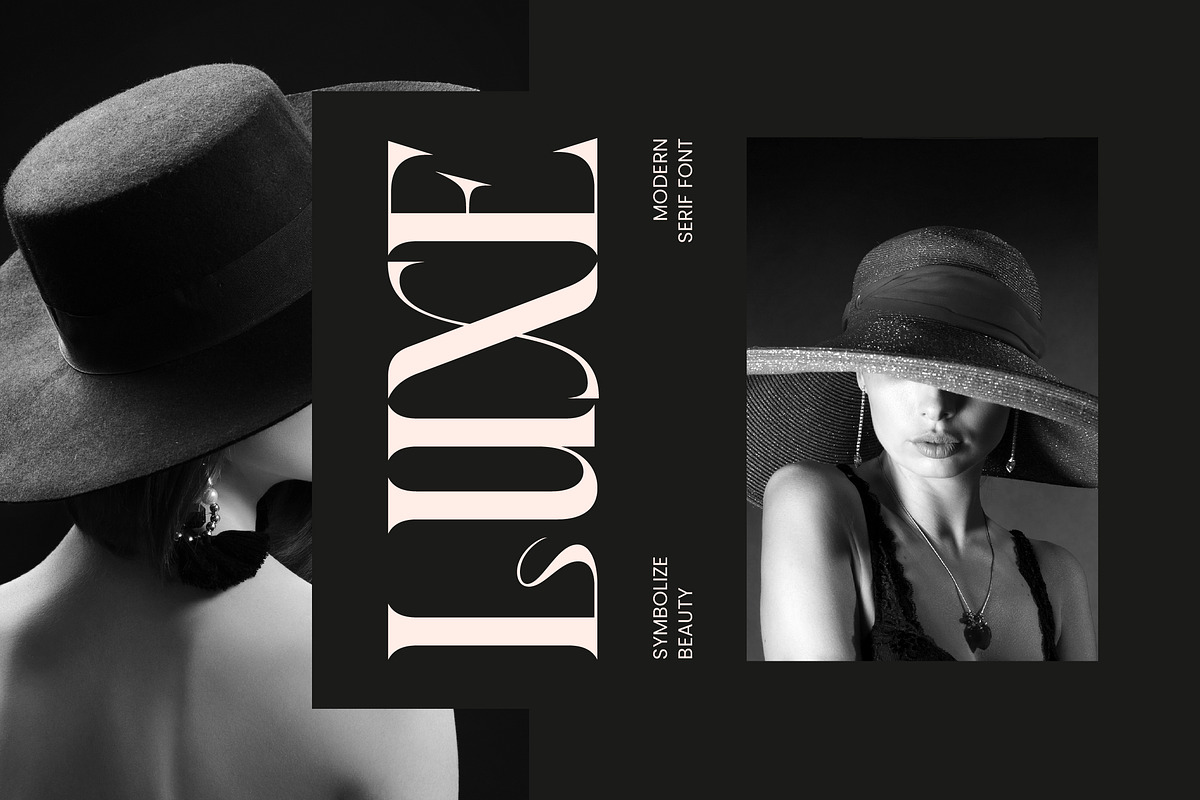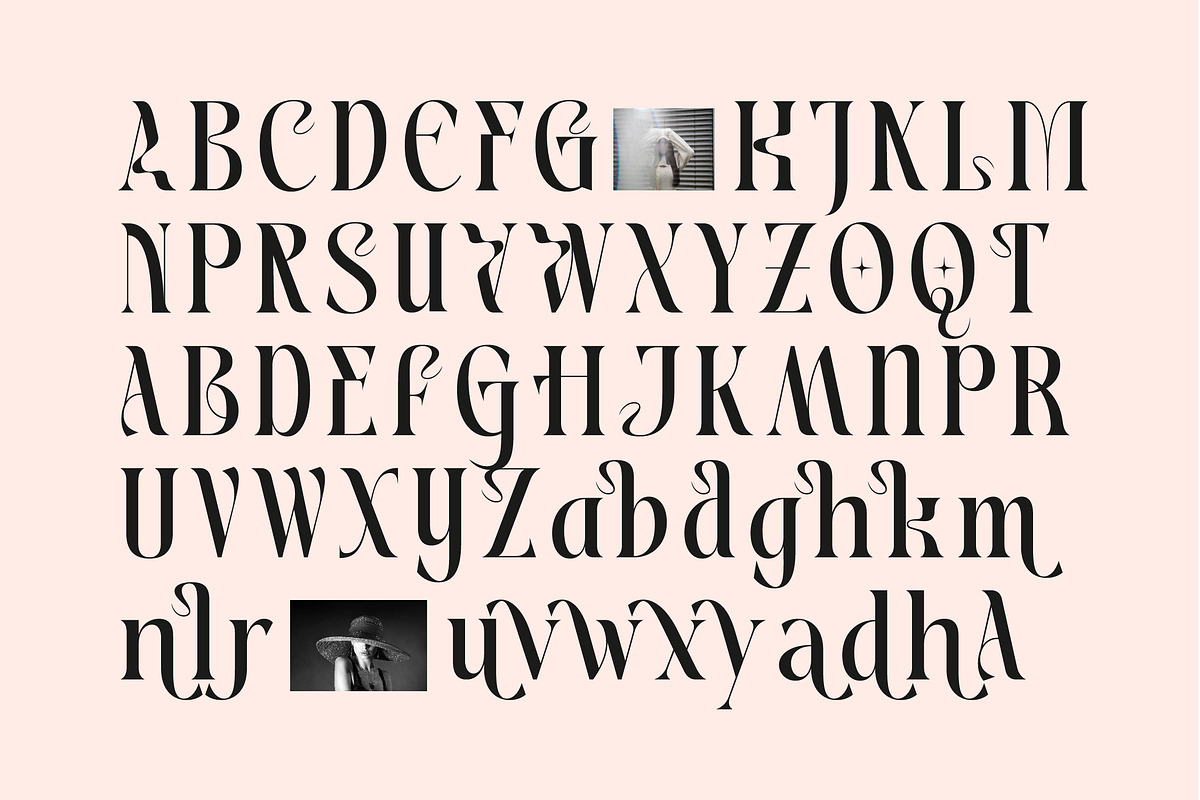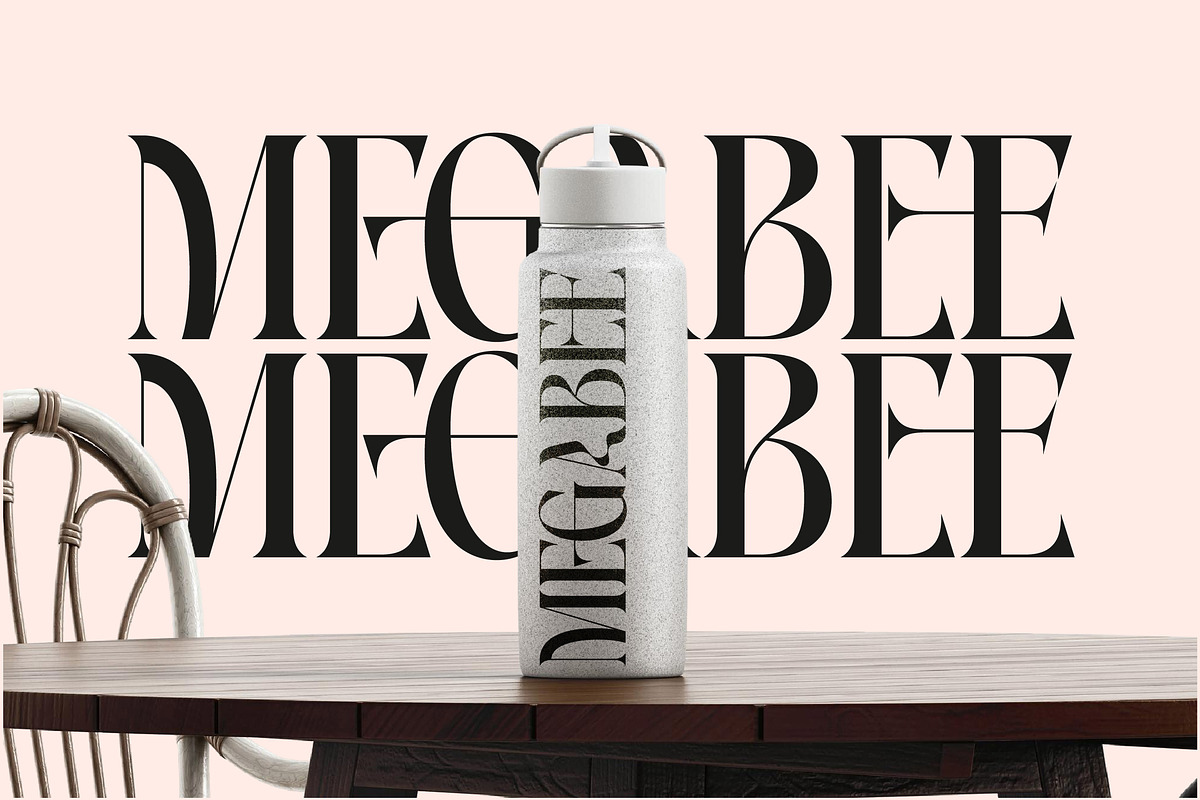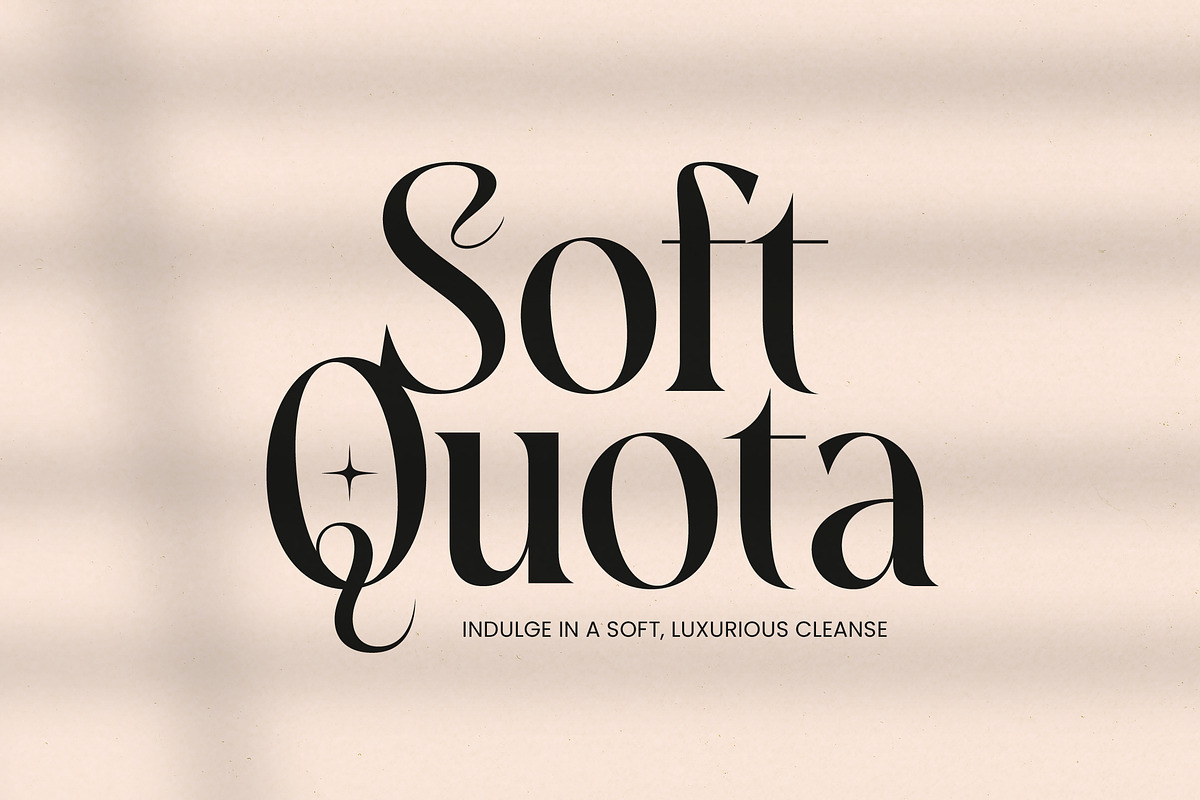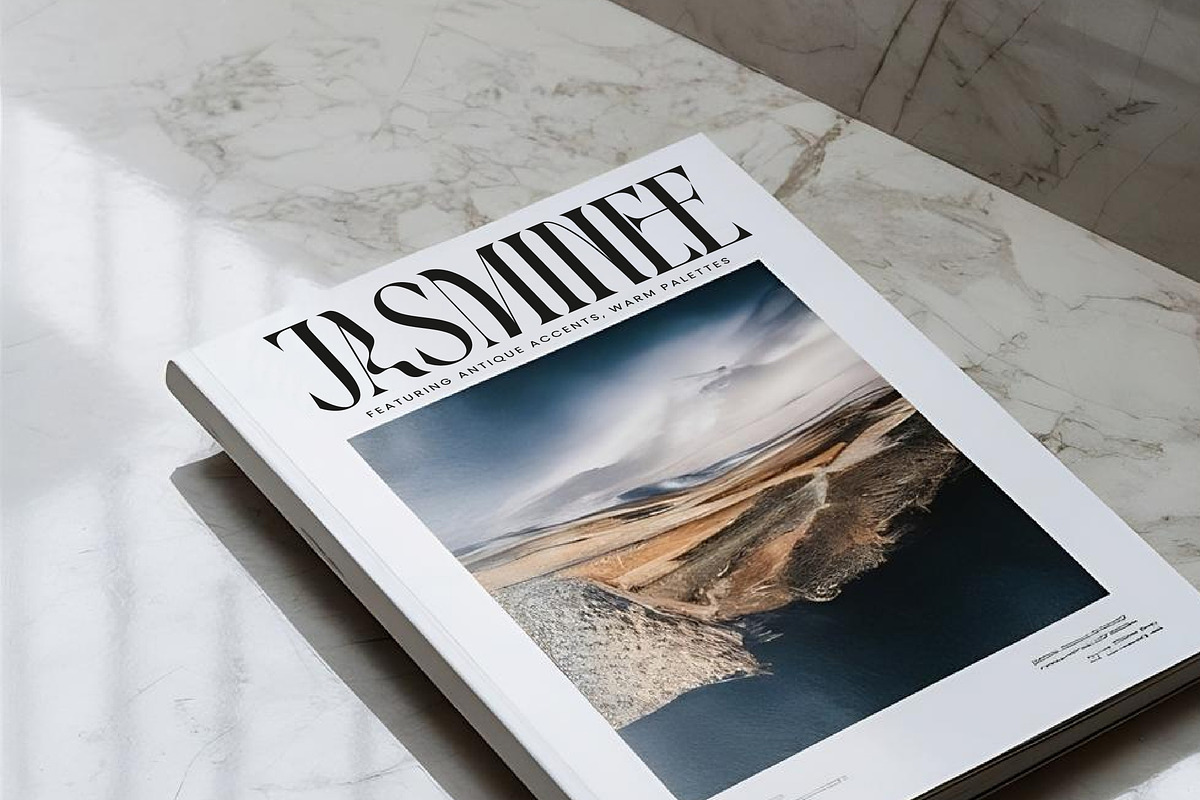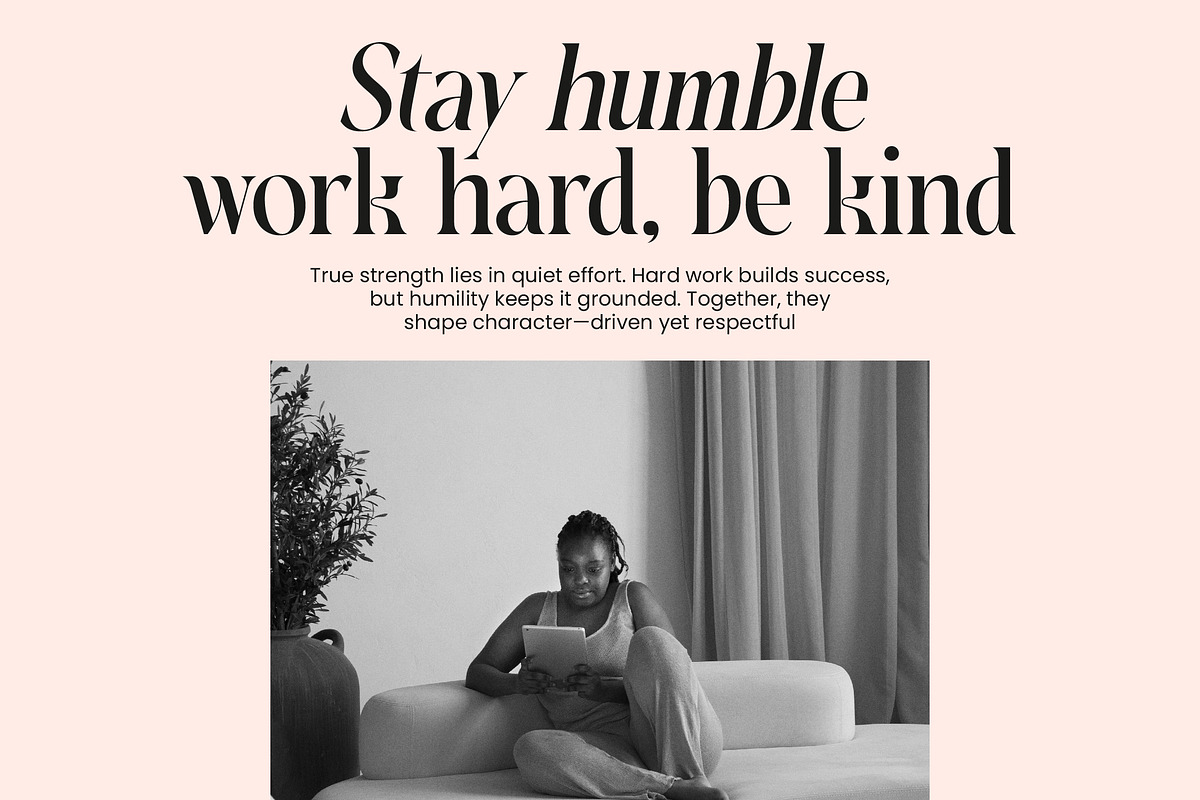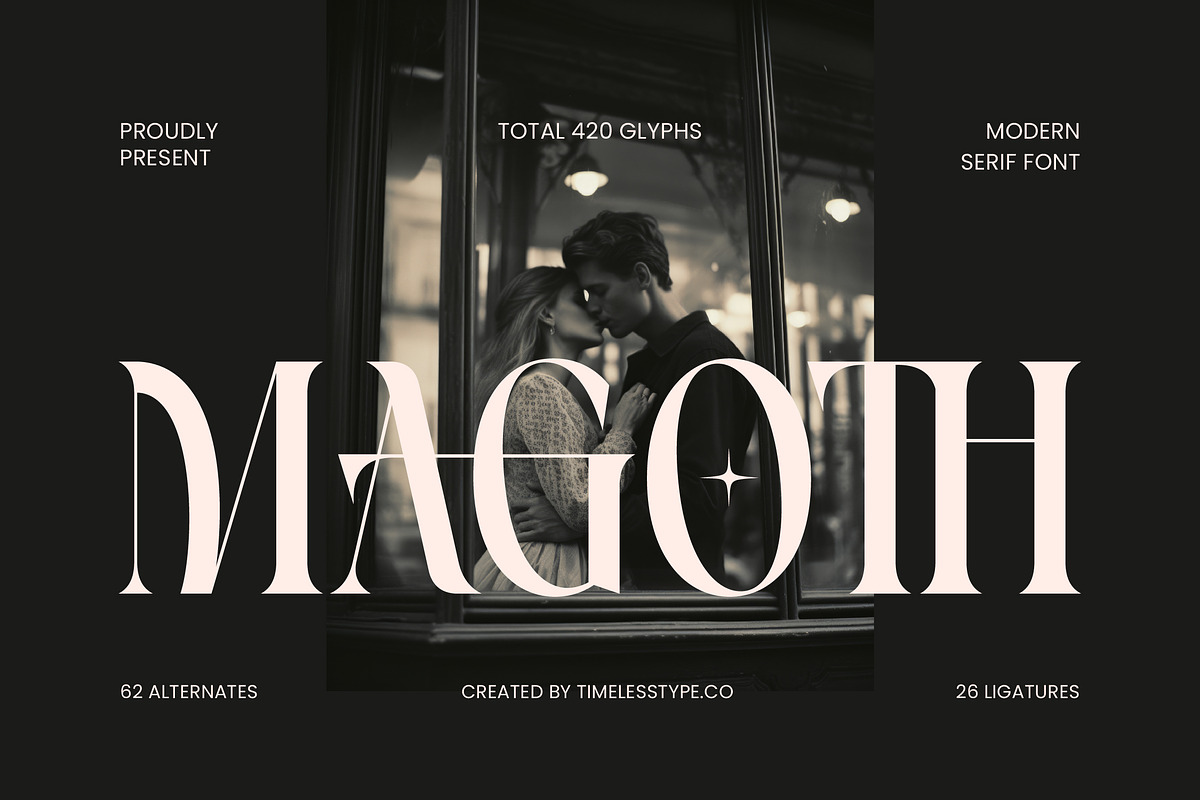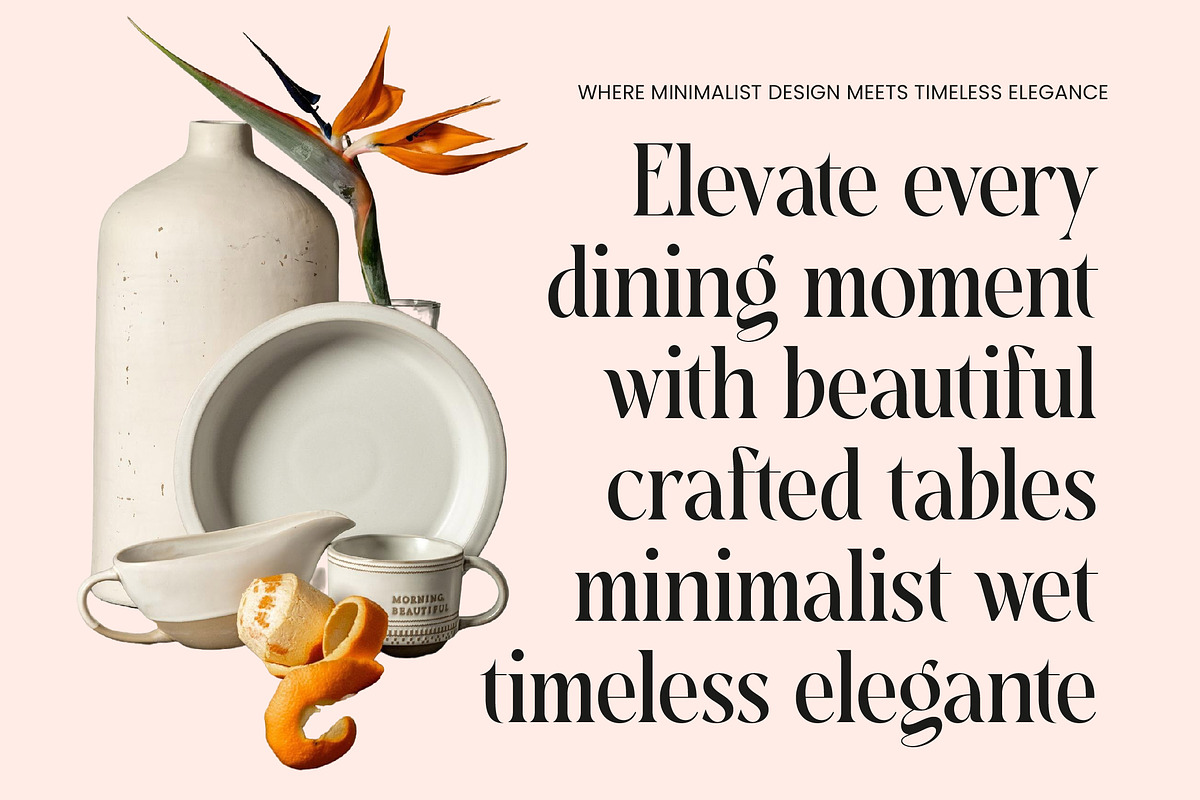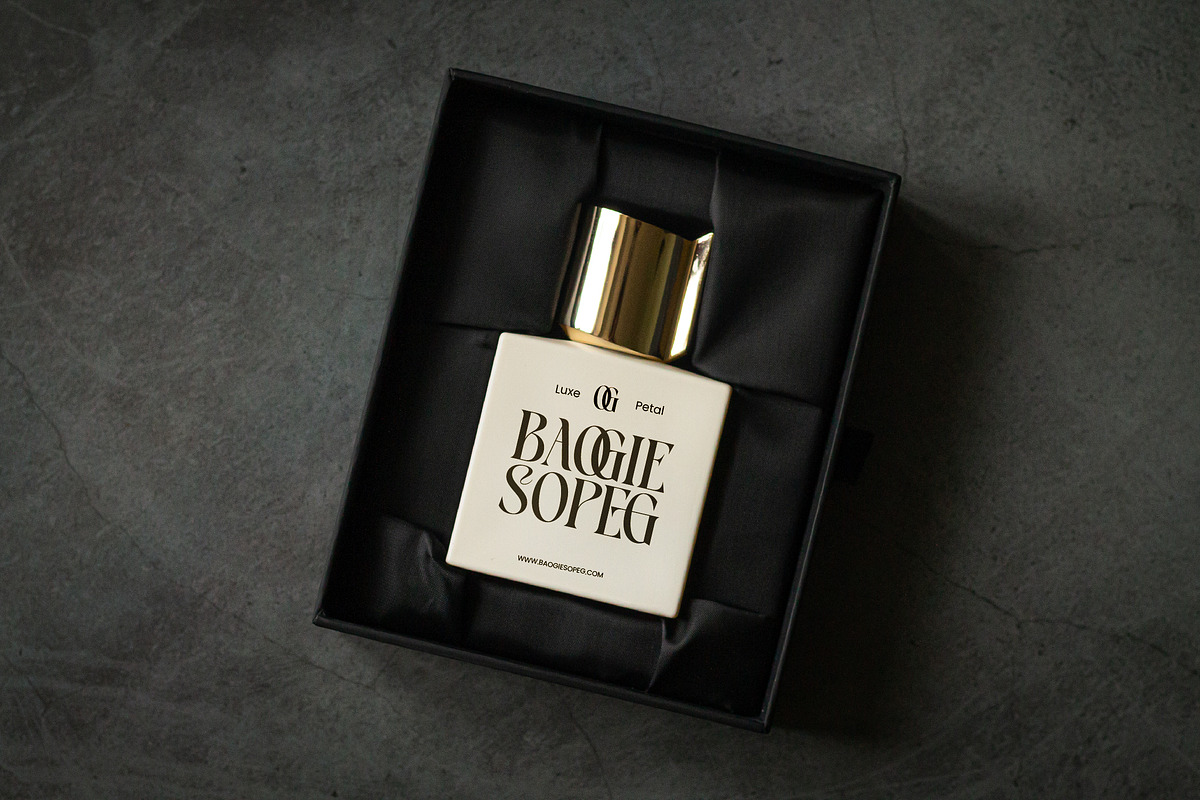
Magoth Modern Serif Display Font
Elevate your visual narrative with the breathtaking elegance of Magoth, a font designed to capture the essence of timeless romance. This exquisite typeface weaves a story of sophistication in every stroke, making it the ultimate choice for designers seeking emotional depth and refined beauty.
Inspired by the quiet intimacy of late-night conversations and the cinematic grain of vintage film, this font draws from a heritage of classic beauty reimagined for a contemporary era. Its atmosphere is one of understated luxury, where every curve feels intentional and every line speaks of high-end craftsmanship.
The soul of this typeface lies in its modern serif display characteristics, offering a luxury typography experience that commands attention without effort. With its high-contrast serif details and editorial font proportions, it provides a powerful branding impact for projects that require a touch of class and distinction.
Perfectly aligned with the current modern serif trend, this typeface meets the demand for editorial display fonts that feel both fresh and familiar. It serves the growing need for character-driven typography in a market saturated with minimalism, providing a soulful alternative for trend-conscious creators.
From high-end logo design and comprehensive branding systems to immersive editorial layouts, this font excels across diverse platforms. It is the perfect companion for luxury packaging, romantic wedding stationery, and avant-garde fashion lookbooks, ensuring your message is delivered with unparalleled grace.
Equipped with a vast library of 420 total glyphs, the set includes an expansive collection of ligatures and alternates to unlock endless creative possibilities. It features a full suite of international characters for multilingual support, ensuring your designs resonate globally with ease.
- Ligature 26 Alternate 62